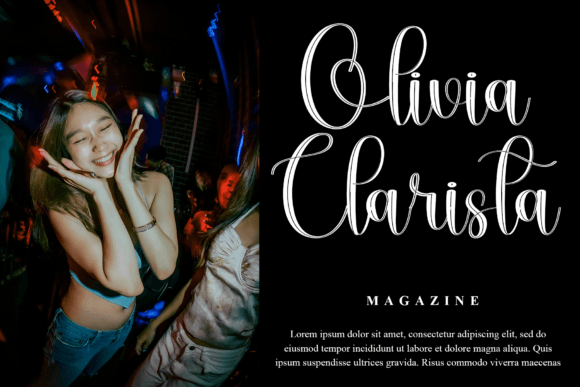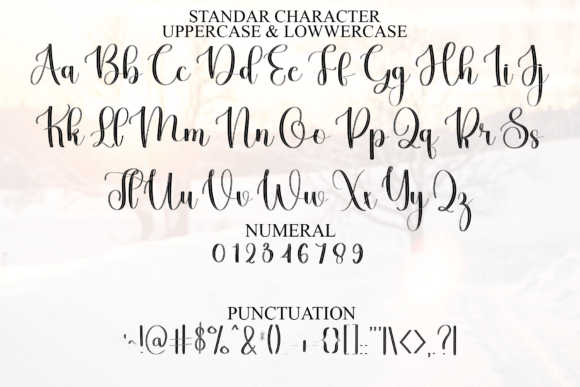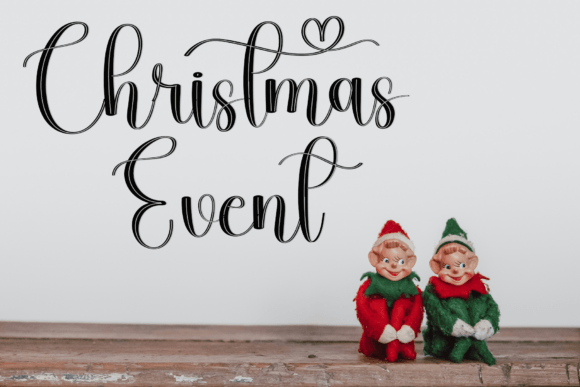
Introduction to Hallo Valentine Font
Hallo Valentine is a stylish and incredibly elegant script font.
Hallo Valentine Font PNG with transparent background - Preview 1
Hallo Valentine Font PNG with transparent background - Preview 2
Hallo Valentine Font PNG with transparent background - Preview 3
Key Features of Hallo Valentine Font
Why Choose Hallo Valentine Font?